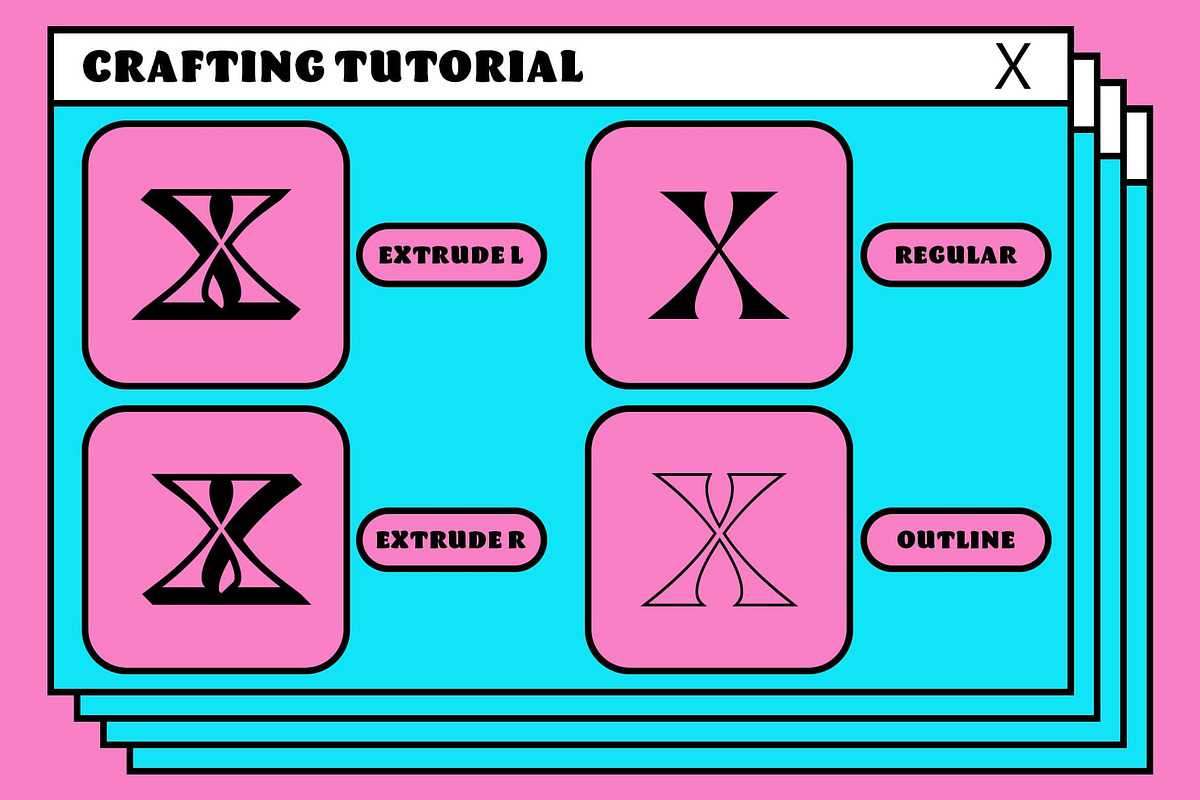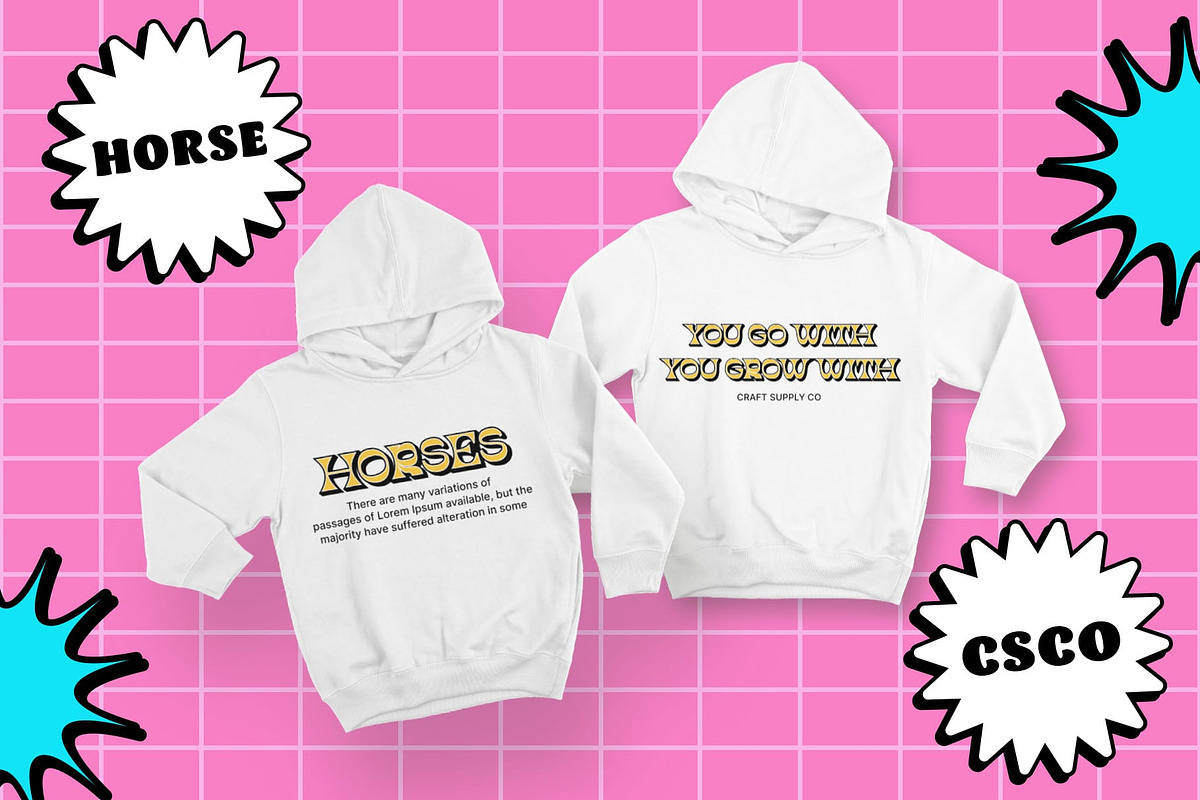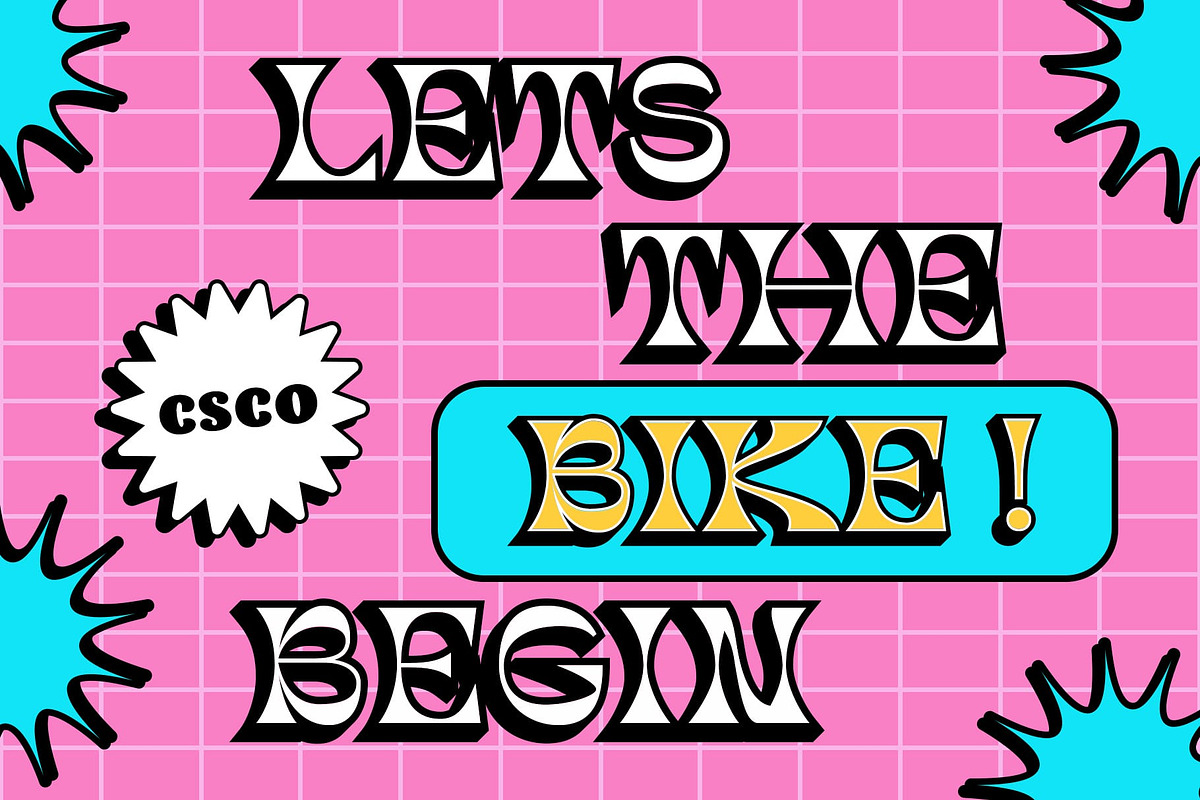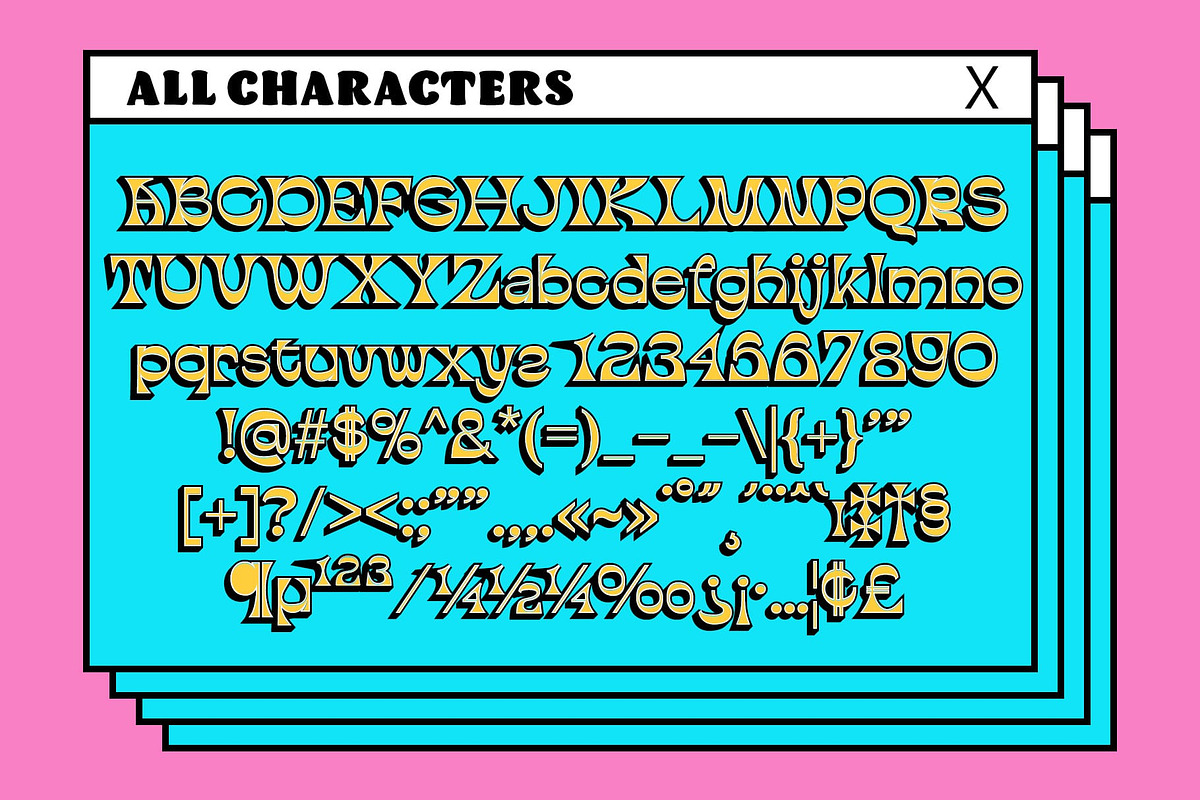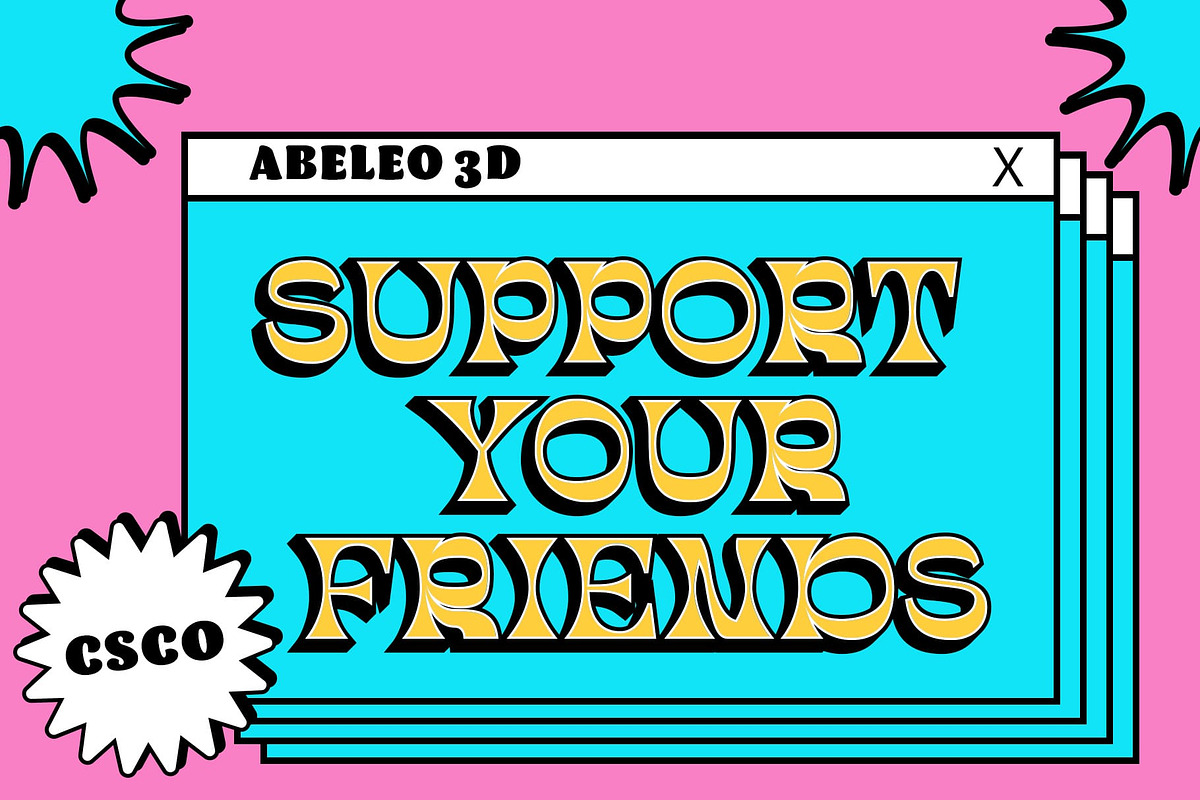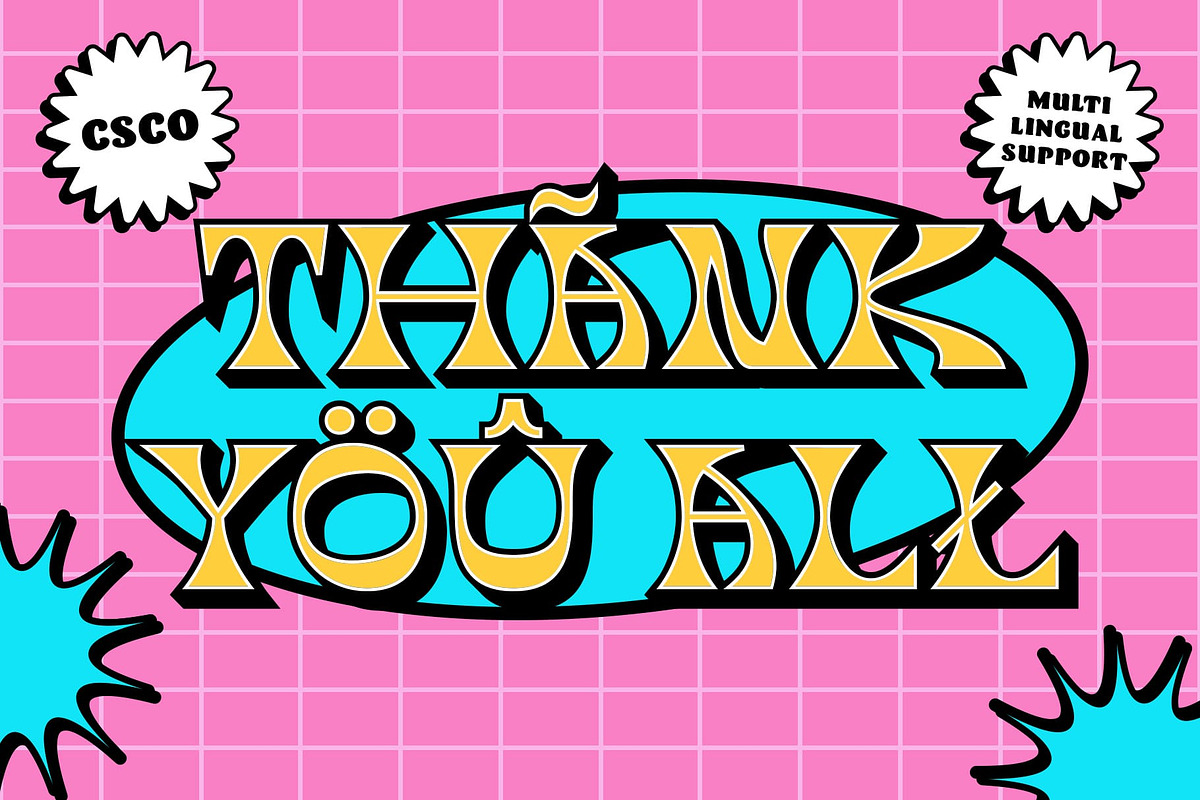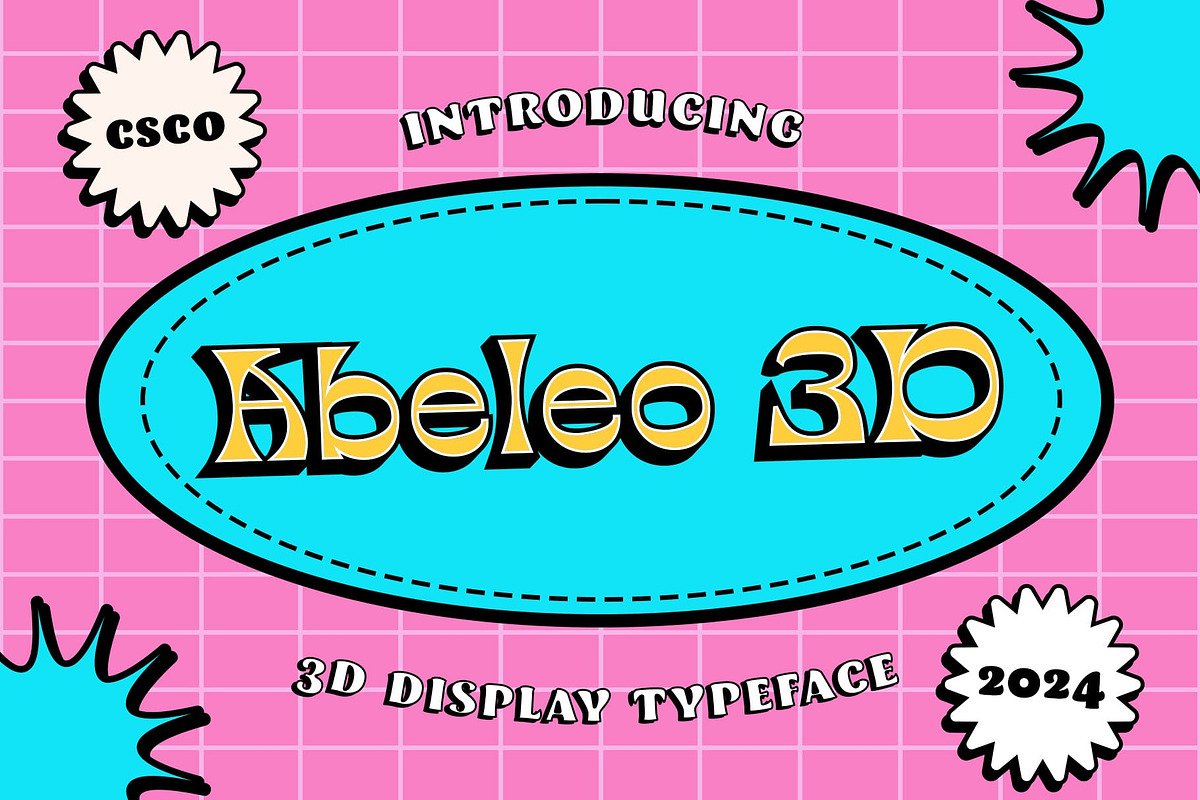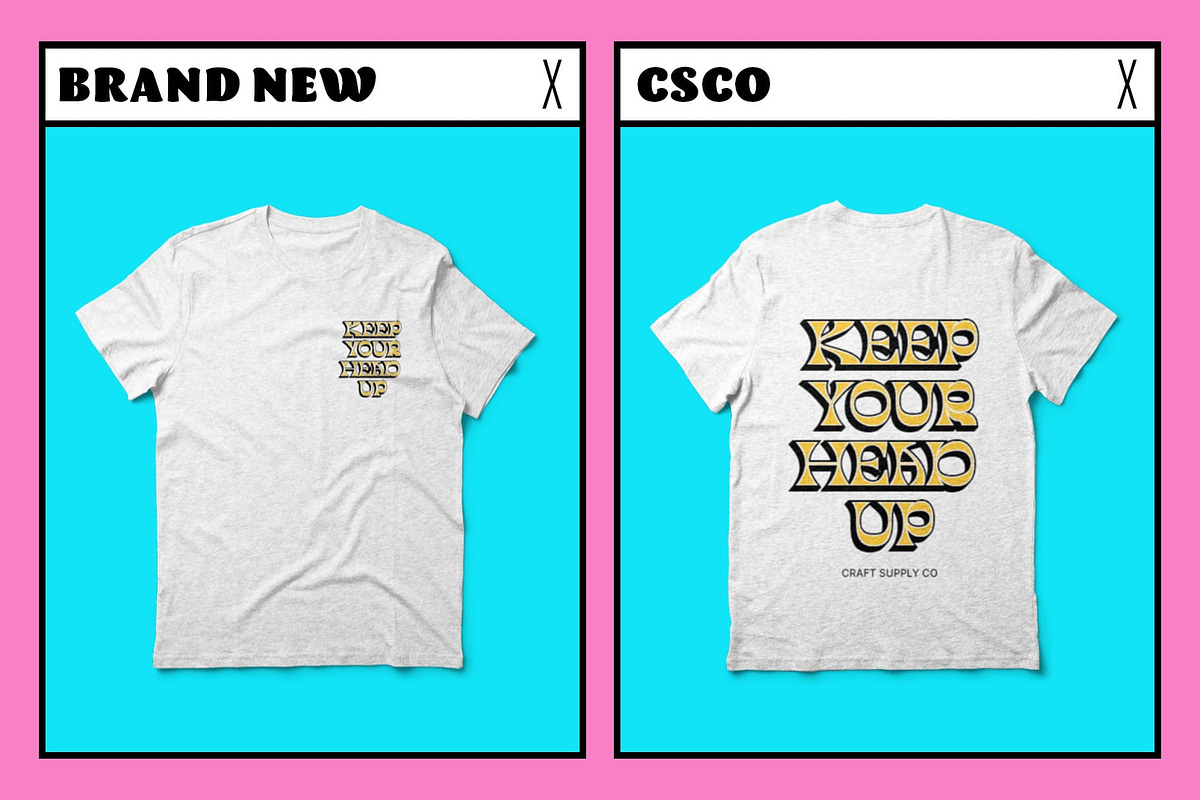
Abeleo 3D
Abeleo 3D: Elevating Display Typography
Distinctive Stem Design Abeleo 3D features a unique display stem that tapers in the middle and widens at the ends, creating a striking visual effect that commands attention.
Expansive 3D Effects With its captivating 3D effects, This font transcends traditional display fonts, adding depth and dimension to every character. Its pop-forward design ensures maximum impact in any project.
Versatile Application Tailored for display purposes, This font excels in a variety of contexts, from advertising campaigns to digital platforms. Its bold, 3D-enhanced letterforms make a lasting impression.
Dynamic and Eye-Catching This font offers a dynamic and eye-catching aesthetic that instantly draws the viewer’s gaze. Its tapered stems and expansive 3D effects make it an ideal choice for projects that demand visual impact.
Bold Statement This font emerges as a bold statement in the realm of display typography. Its distinctive stem design and captivating 3D effects combine to create a font that is both visually striking and versatile in application. Step into the world of This font and elevate your designs with its dynamic presence.